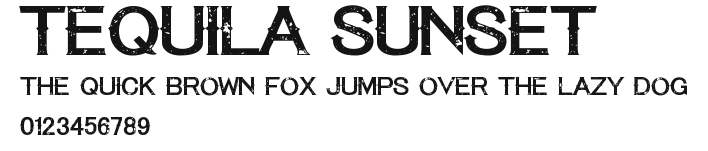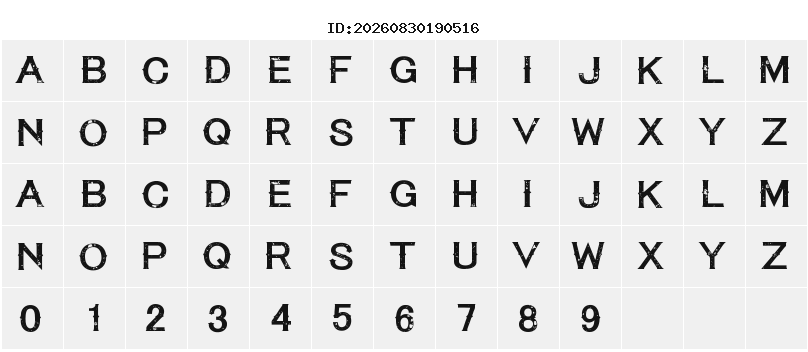
• Font Name: Tequila Sunset
• Designer: Chris Vile
• Manufacturer: Font Monger
• Description: Tequila Sunset Regular is a font by Font Monger, designed by Chris Vile in 2015.
About Tequila Sunset.ttf
Tequila Sunset.ttf is a modern, elegant sans-serif font designed for ultimate readability and visual harmony. Perfect for branding, headlines, web design, and print materials.